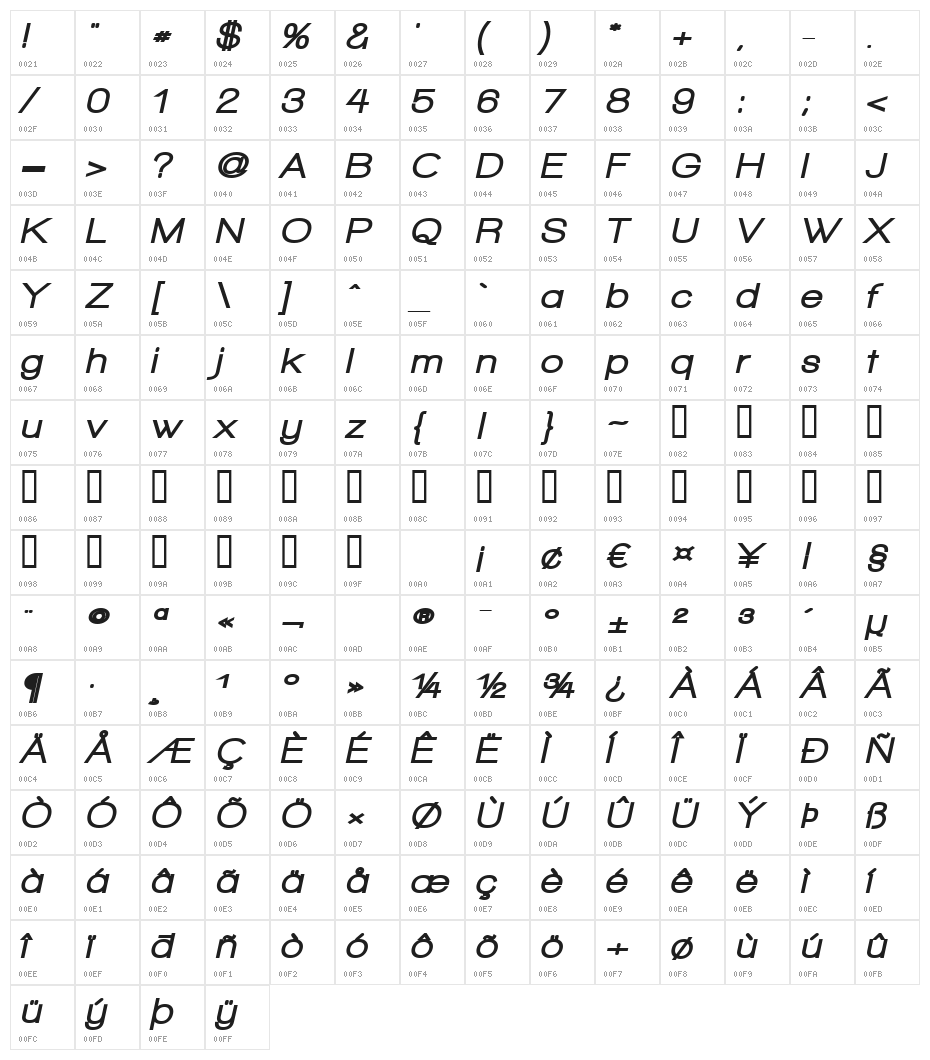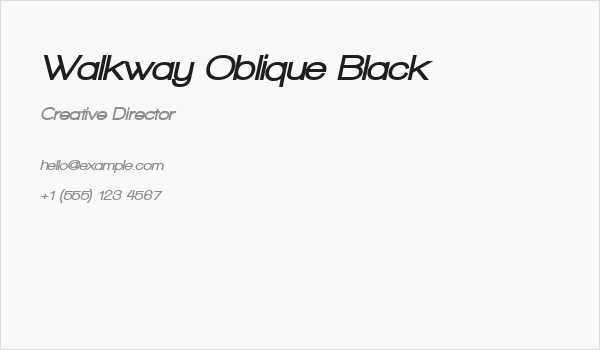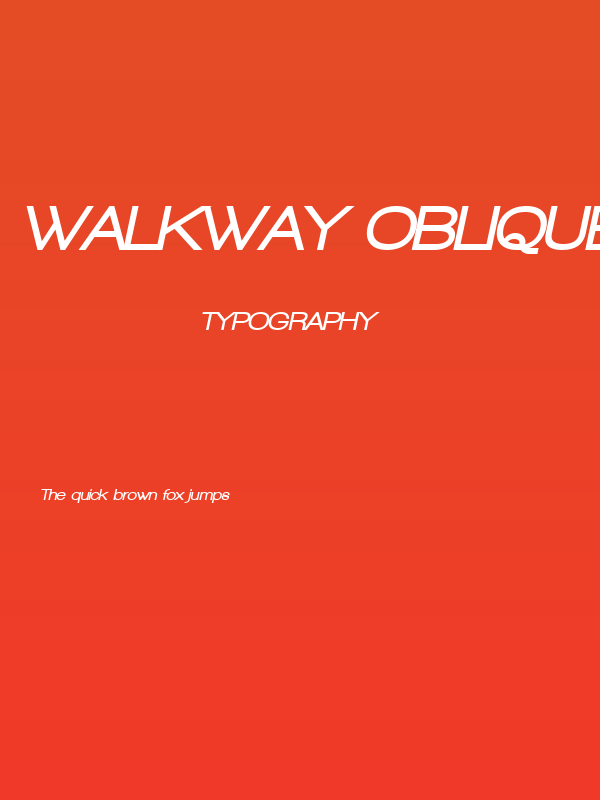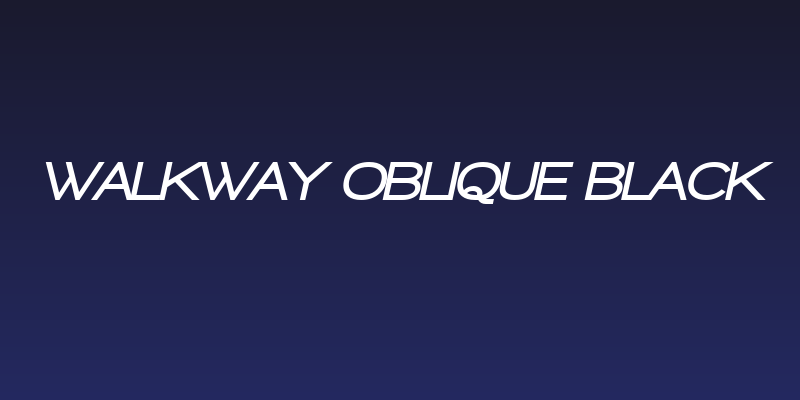
Walkway Oblique Black Font
Walkway Oblique Black Description
This font features an oblique style with a modern and sleek appearance. The characters are slightly slanted, giving a dynamic and forward-moving impression. The strokes are consistent in thickness, contributing to a uniform and cohesive look. The font maintains a clean and professional aesthetic, making it suitable for a variety of design applications. Its geometric shapes and smooth curves enhance readability while adding a contemporary touch. The numerals and special characters are designed to match the overall style, ensuring visual harmony across all elements.
| Proposed Projects | Ideal for branding, advertising, and editorial design where a modern and professional look is desired. |